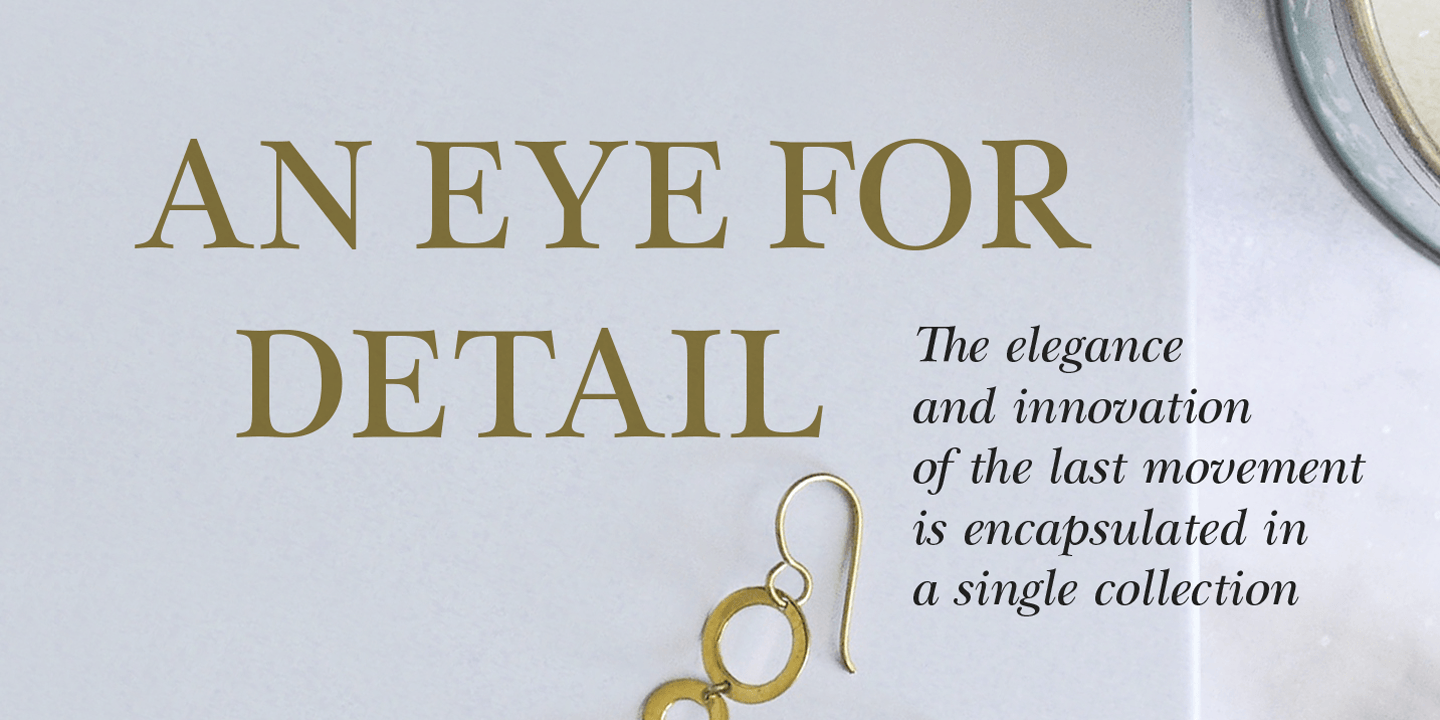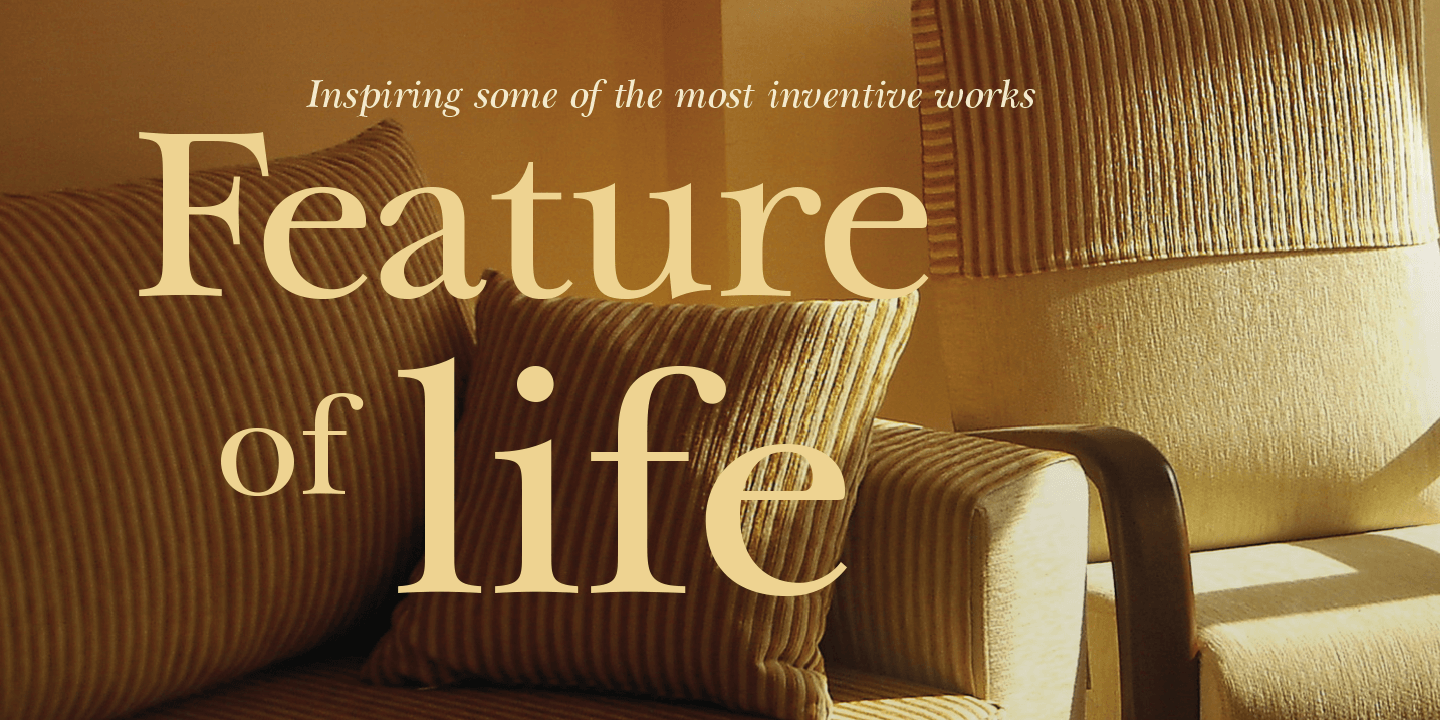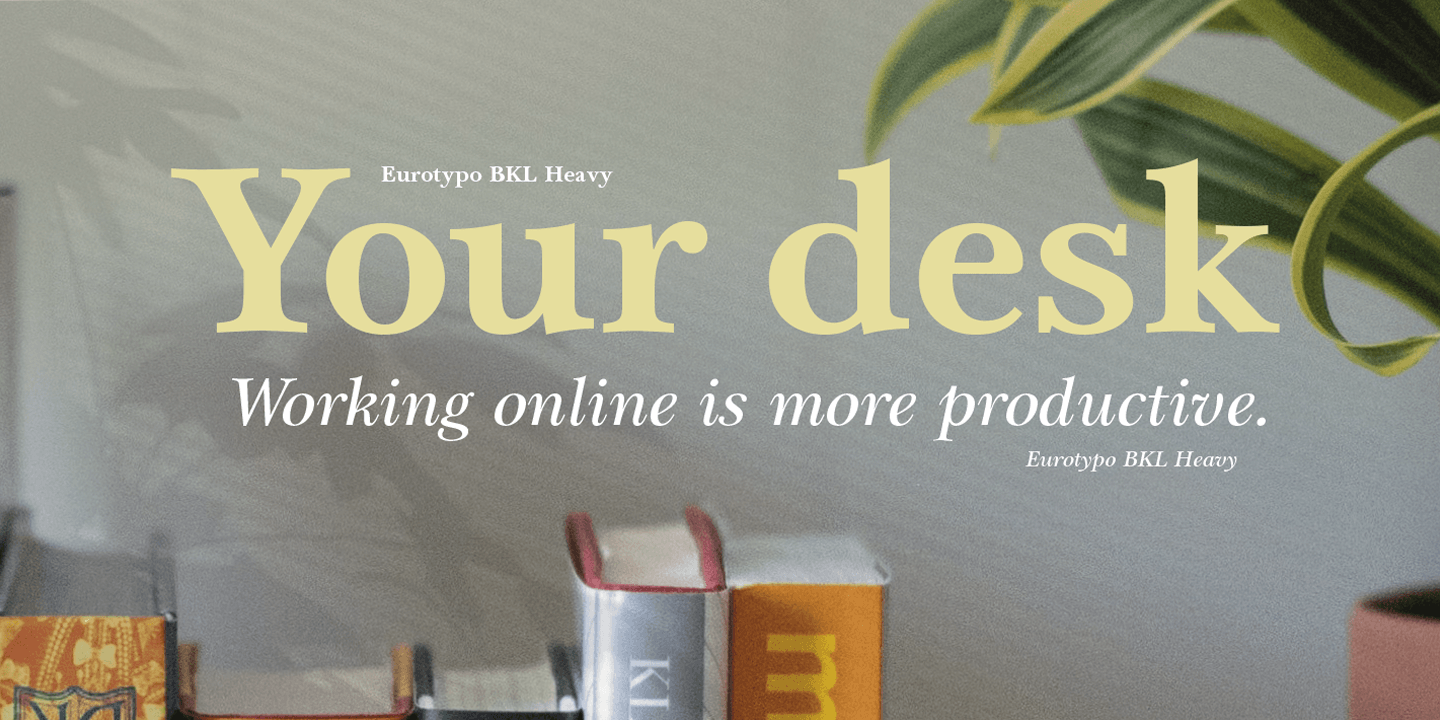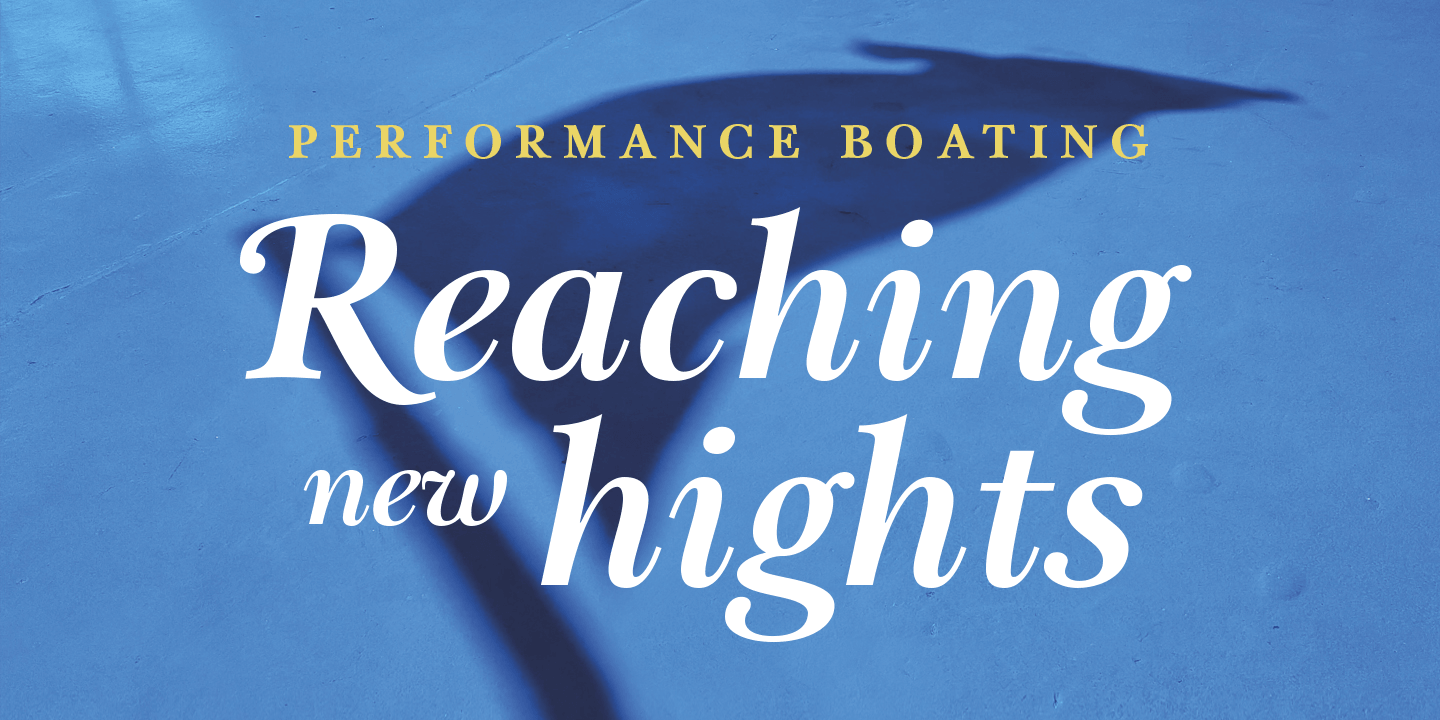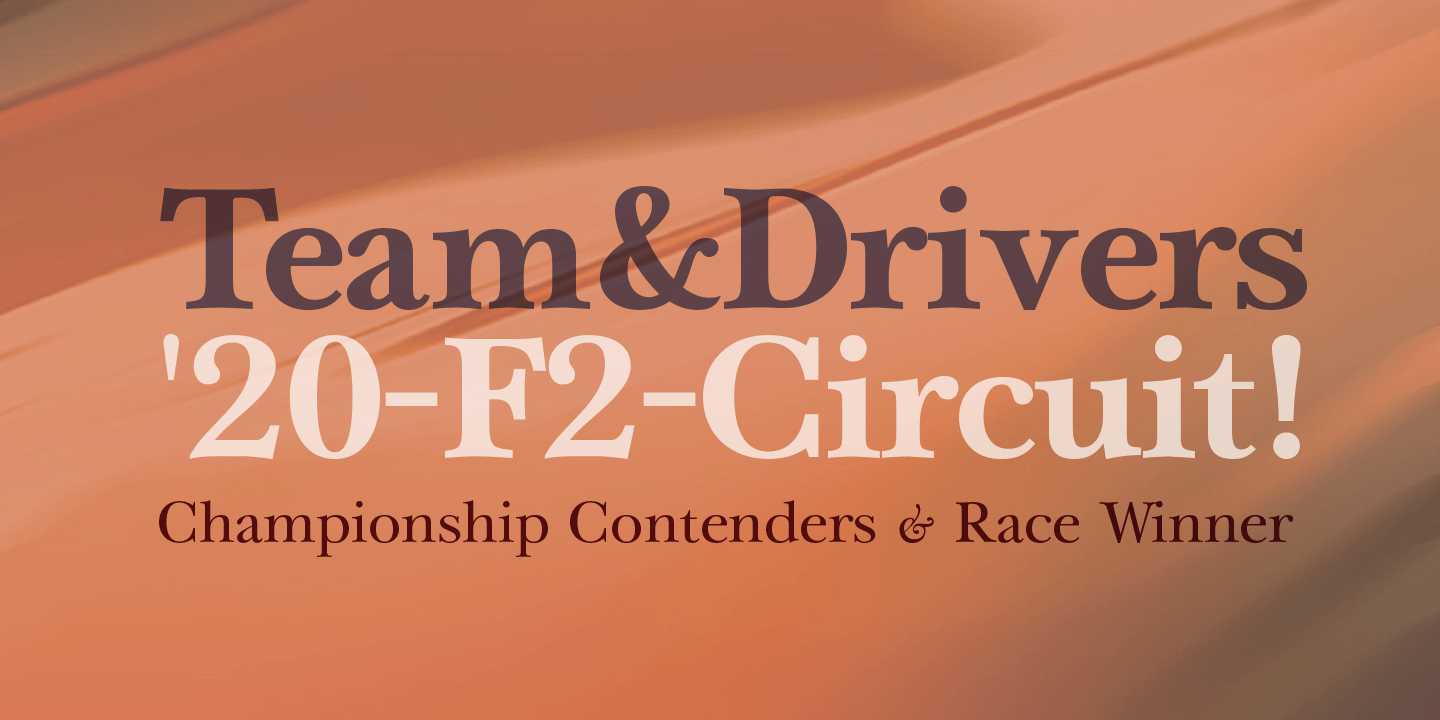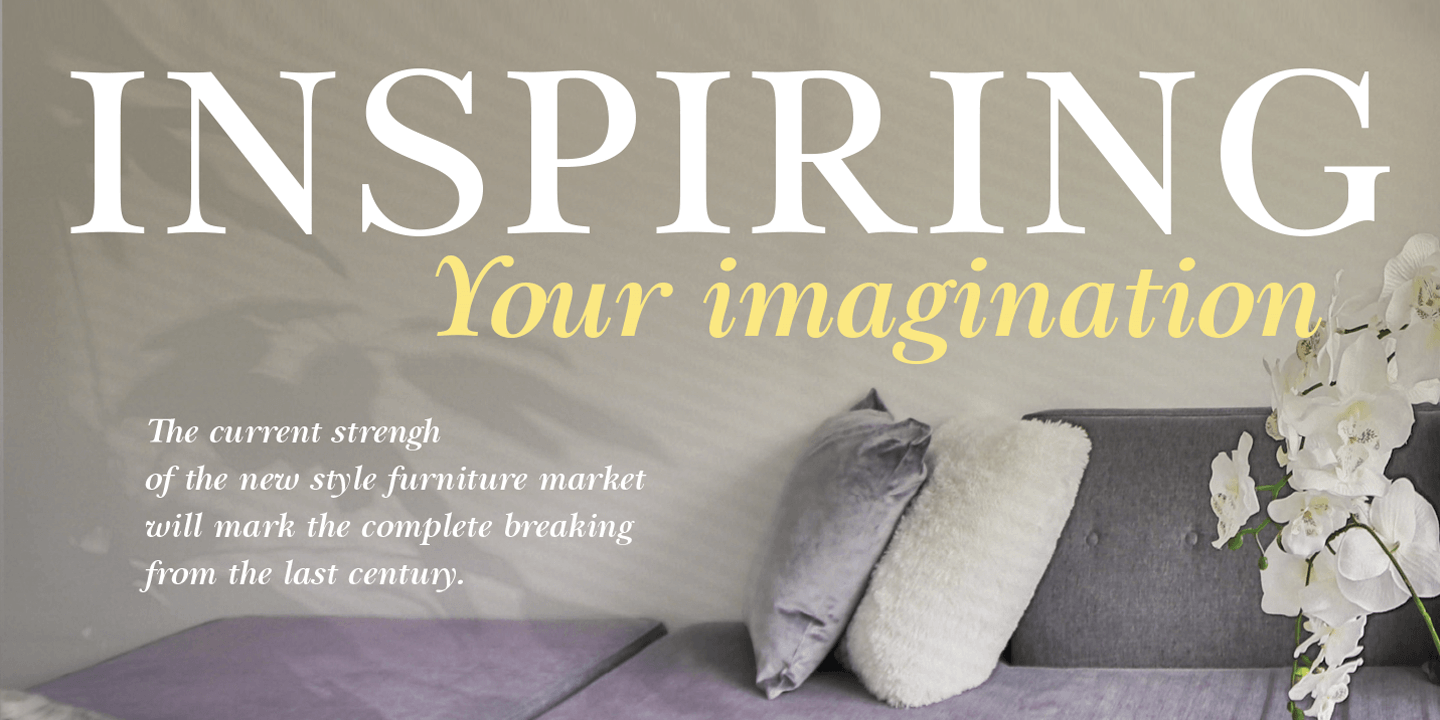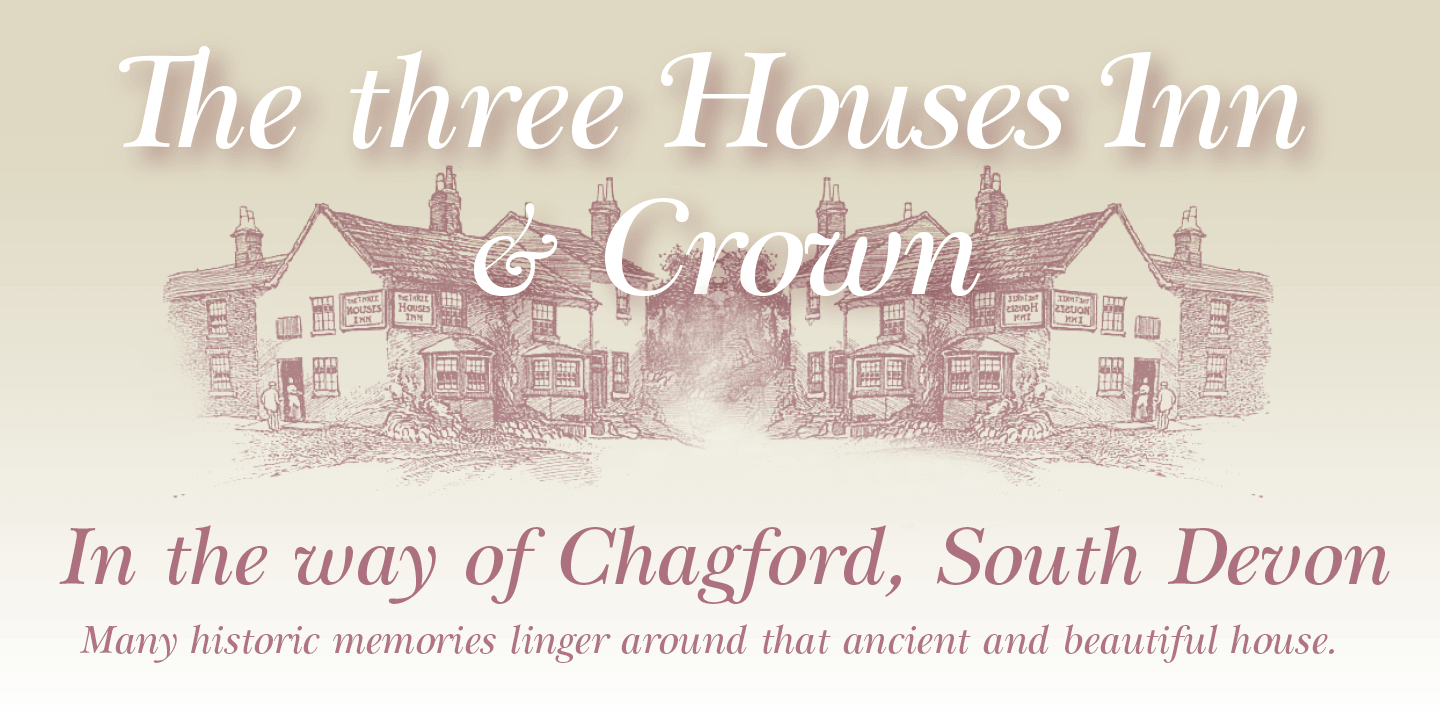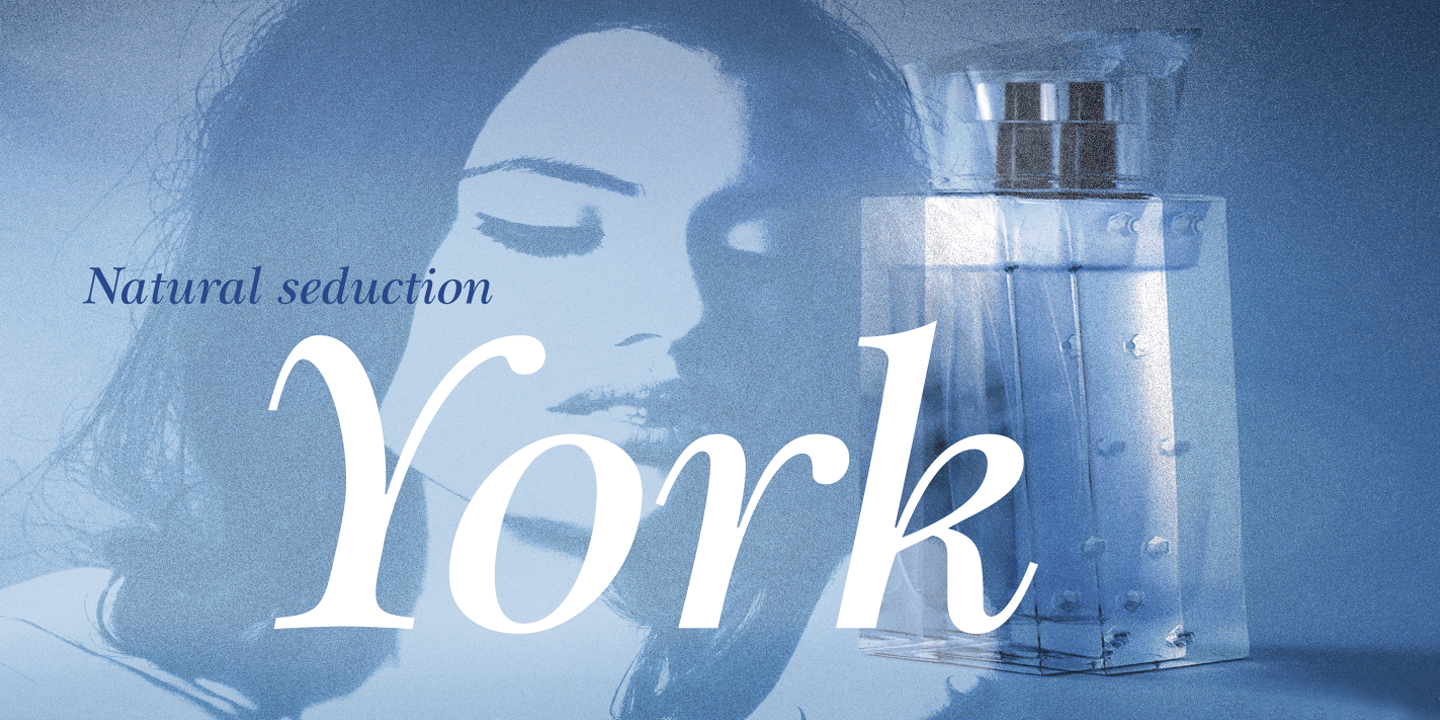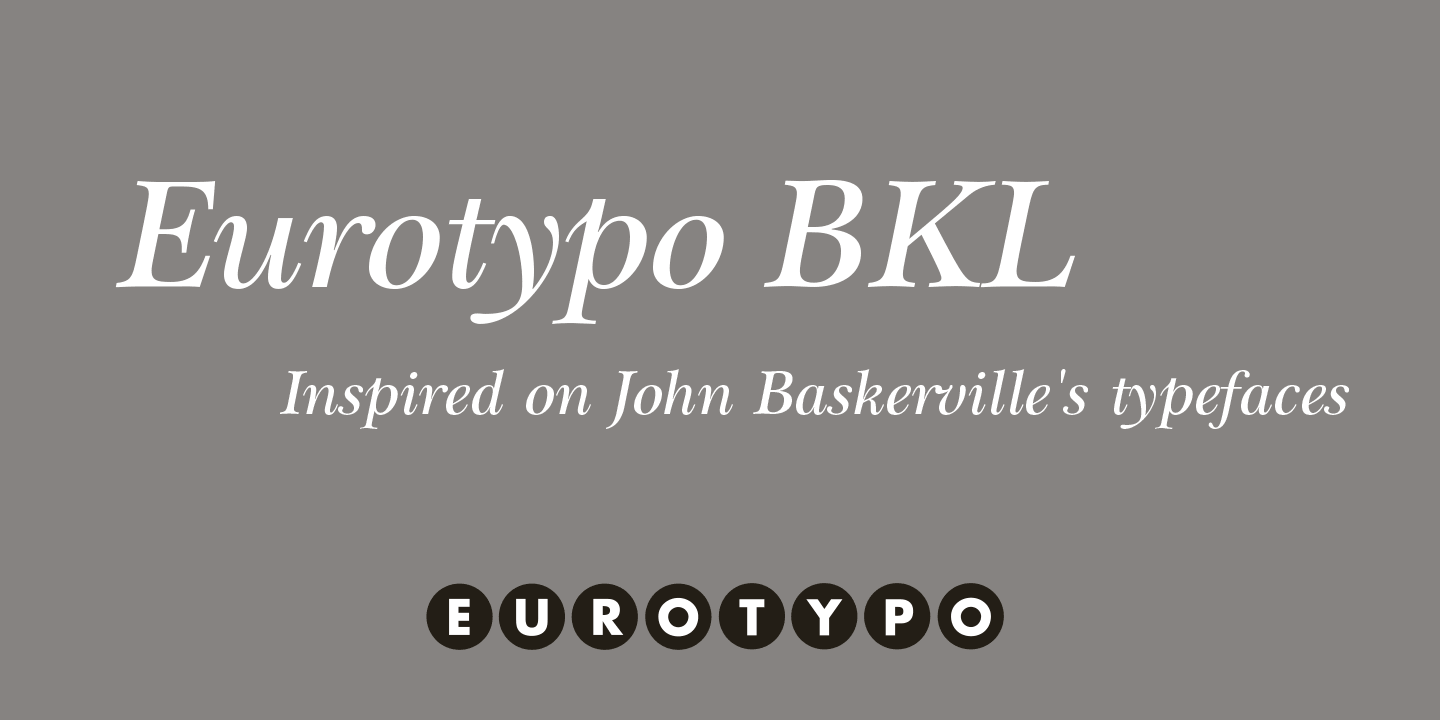
Eurotypo BKL
About Eurotypo BKL
Eurotypo BKL is a family of fonts inspired in on one of the most beautiful British Typography ever done. This version of Baskerville tries to reflect the taste of his fine style, compatible with the bluntness of the digital present. As many other designers…